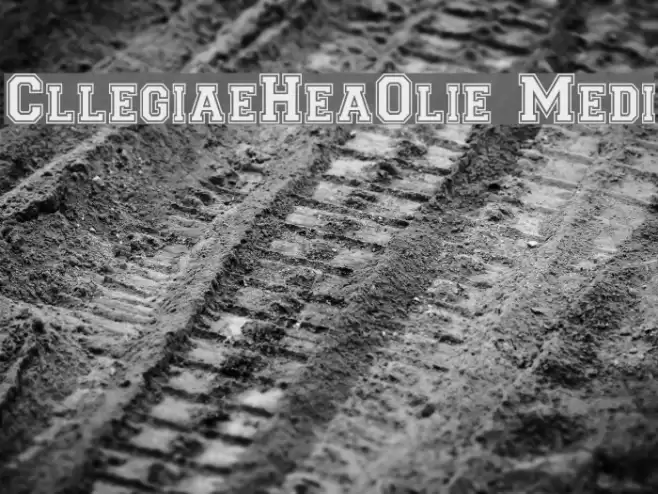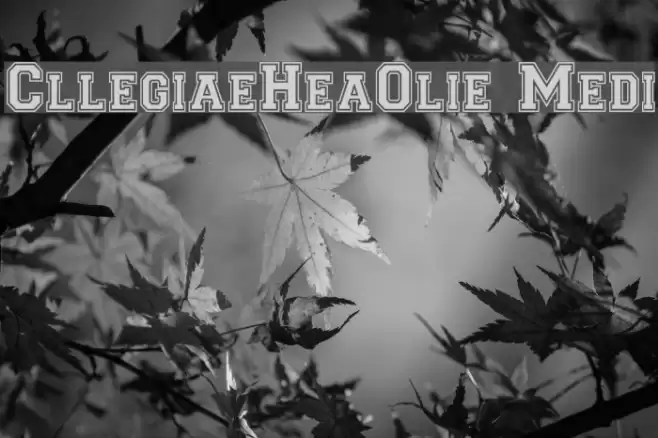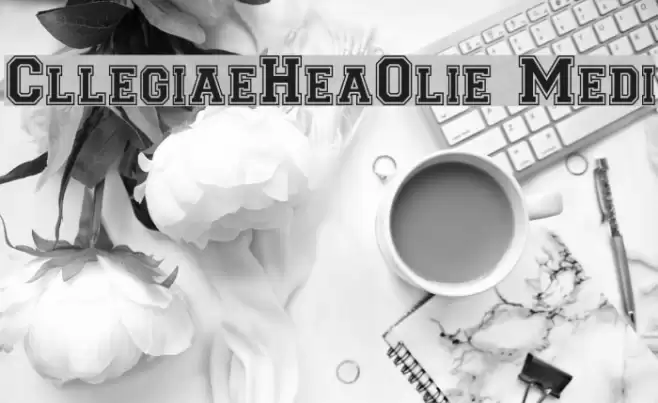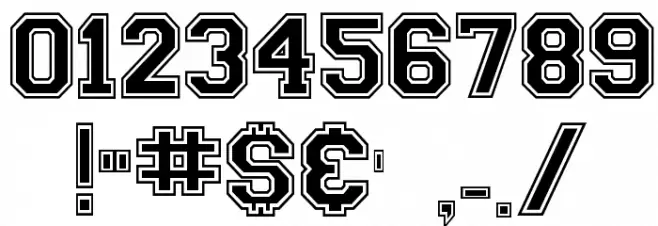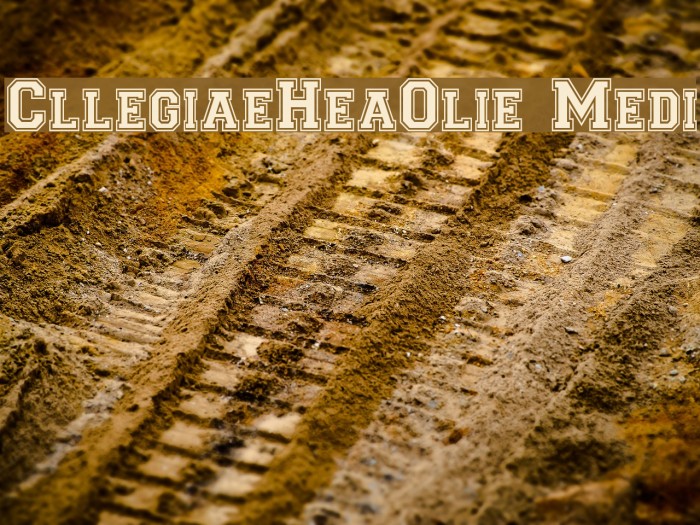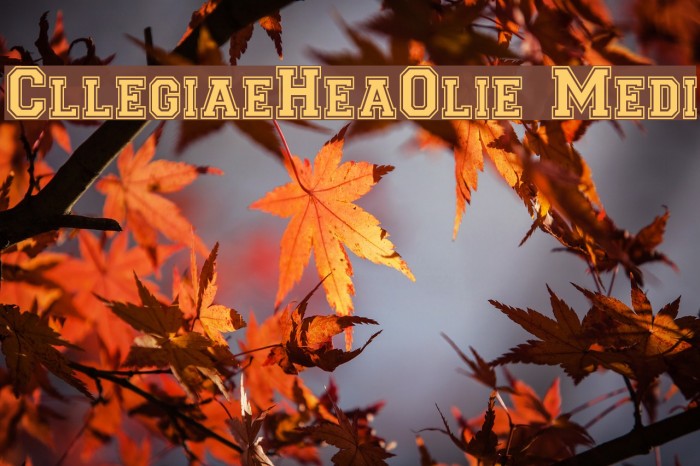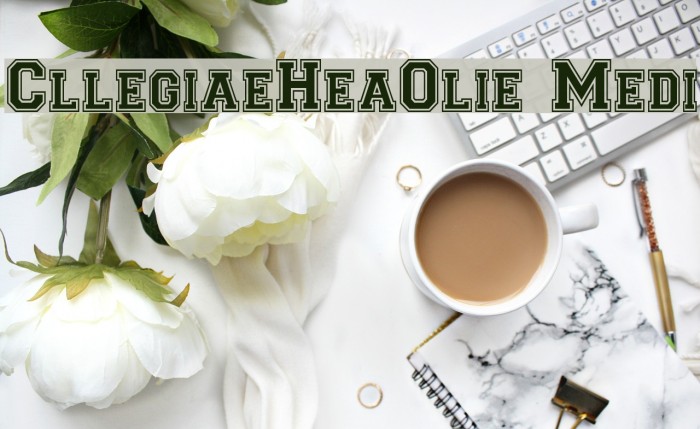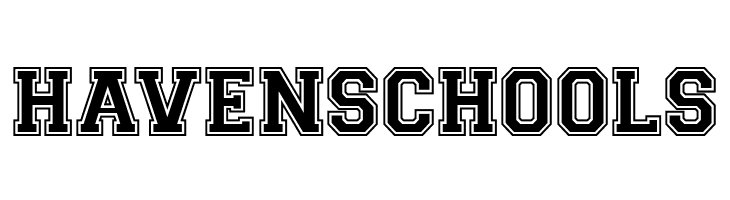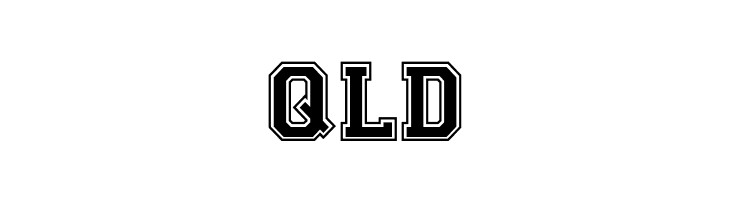
CollegiateHeavyOutline Medium Font
CollegiateHeavyOutline Medium Description
This font features a bold, outlined style reminiscent of traditional collegiate or varsity lettering. The characters are uppercase with a strong, geometric structure, emphasizing a sense of strength and stability. The outline adds a layer of depth, making the letters stand out prominently. The font is well-suited for designs that require a bold statement, such as sports team logos or school-related materials. Its clear, legible design ensures readability even at smaller sizes, while the outline provides a distinctive look that captures attention.
Bold, outlined collegiate-style font with strong geometric structure from Basic fonts.
- Proposed Projects: Ideal for sports team logos, school branding, event posters, and merchandise designs.
- Overall Style: Classic